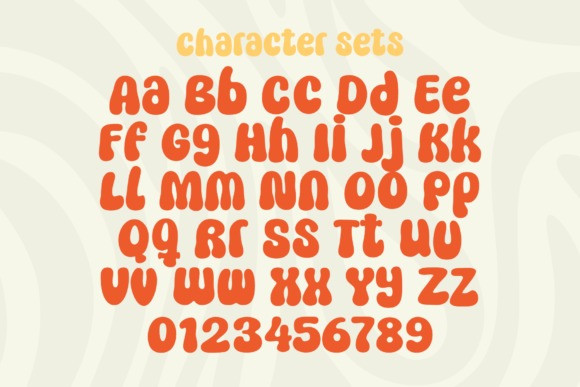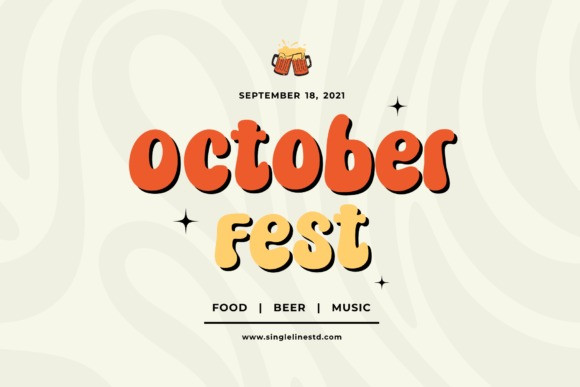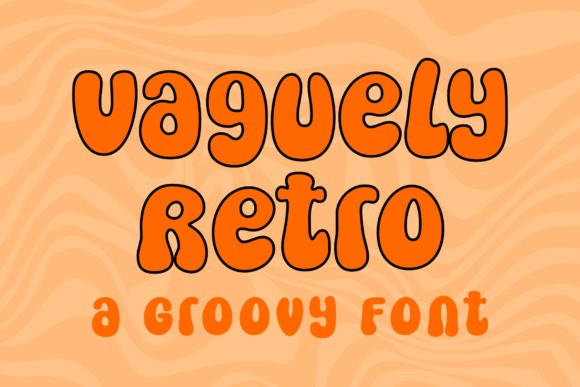
Vaguely Retro Font
Vaguely Retro Font is a bold, fun, quirky, and bubbly retro font. This font is a trendy display font that is perfect for social media or crafty projects. Use it for branding, crafts for decoration, t-shirts, and more!